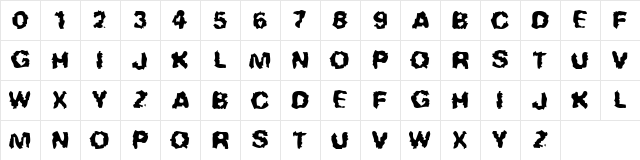
Damage!" Maim Regular Free Font
Damage!" Maim Regular
Damage!" Maim Family
Design Context for Damage!" Maim
Damage!" Maim is a composed and adaptable typeface that performs quietly and consistently across a wide range of design contexts.
Pro Tip: Use Damage!" Maim in both headline and body roles to test its range before committing to a single application.